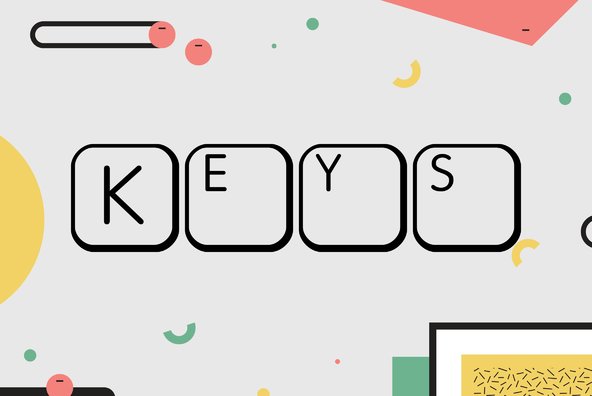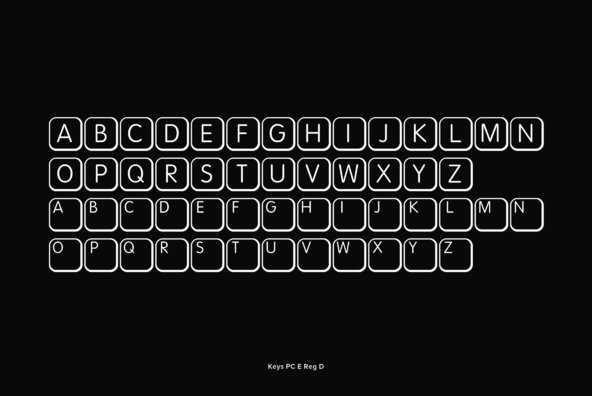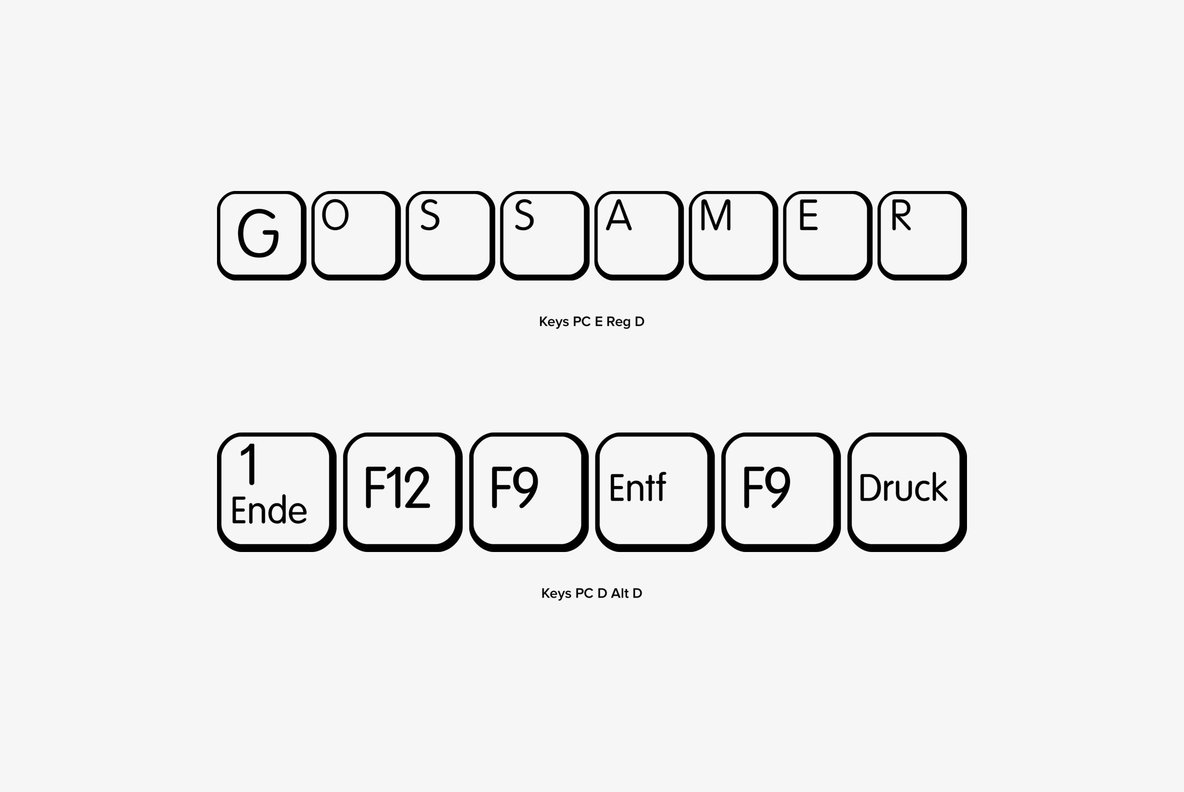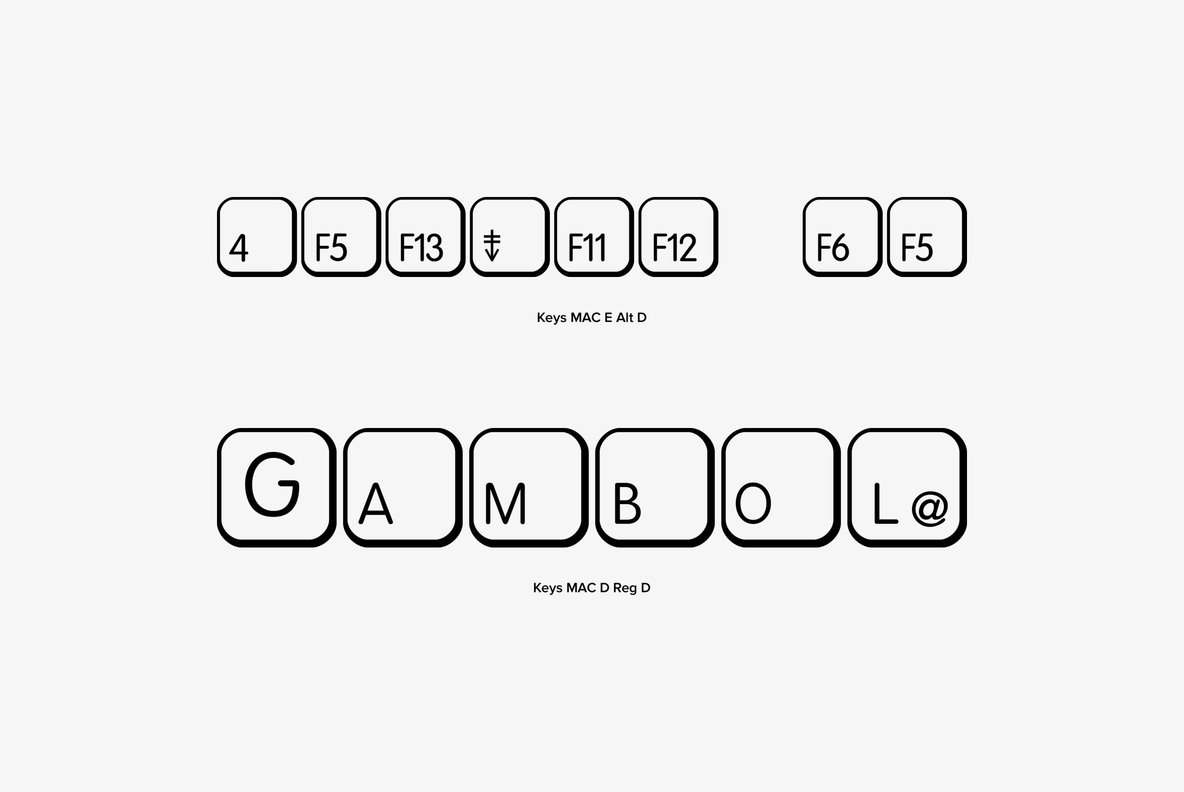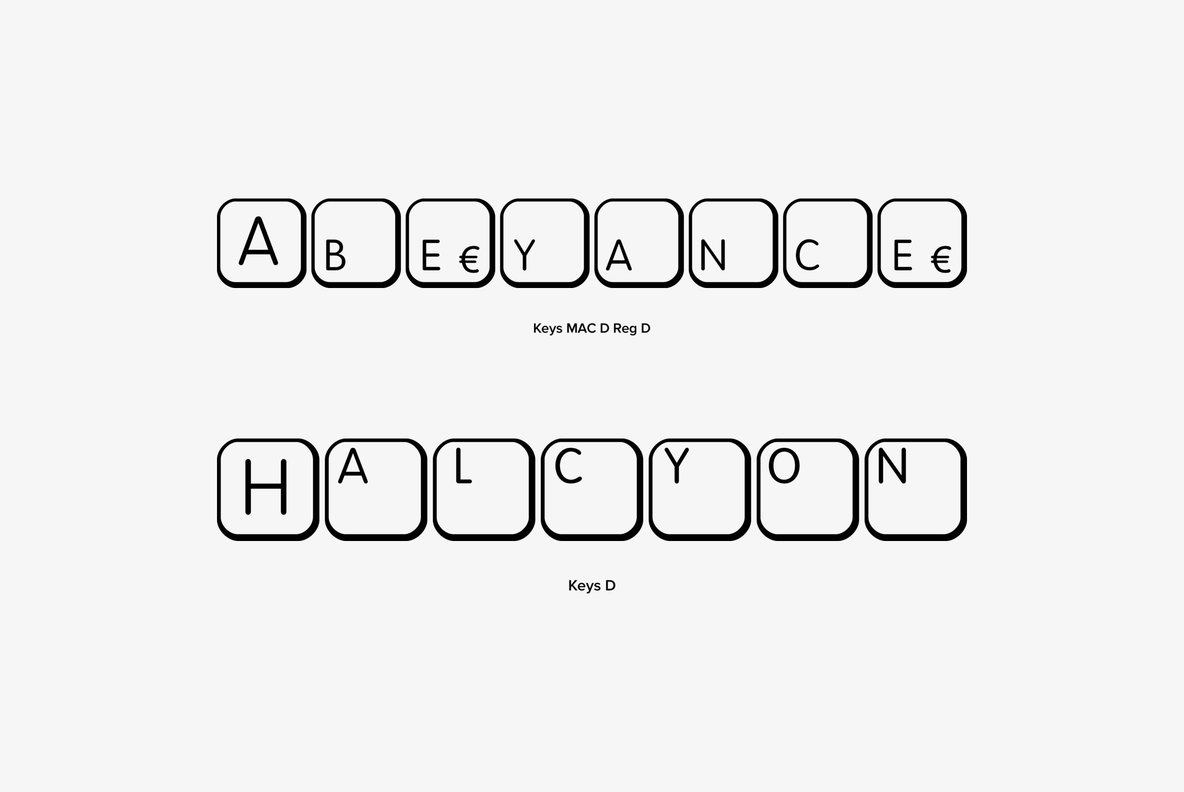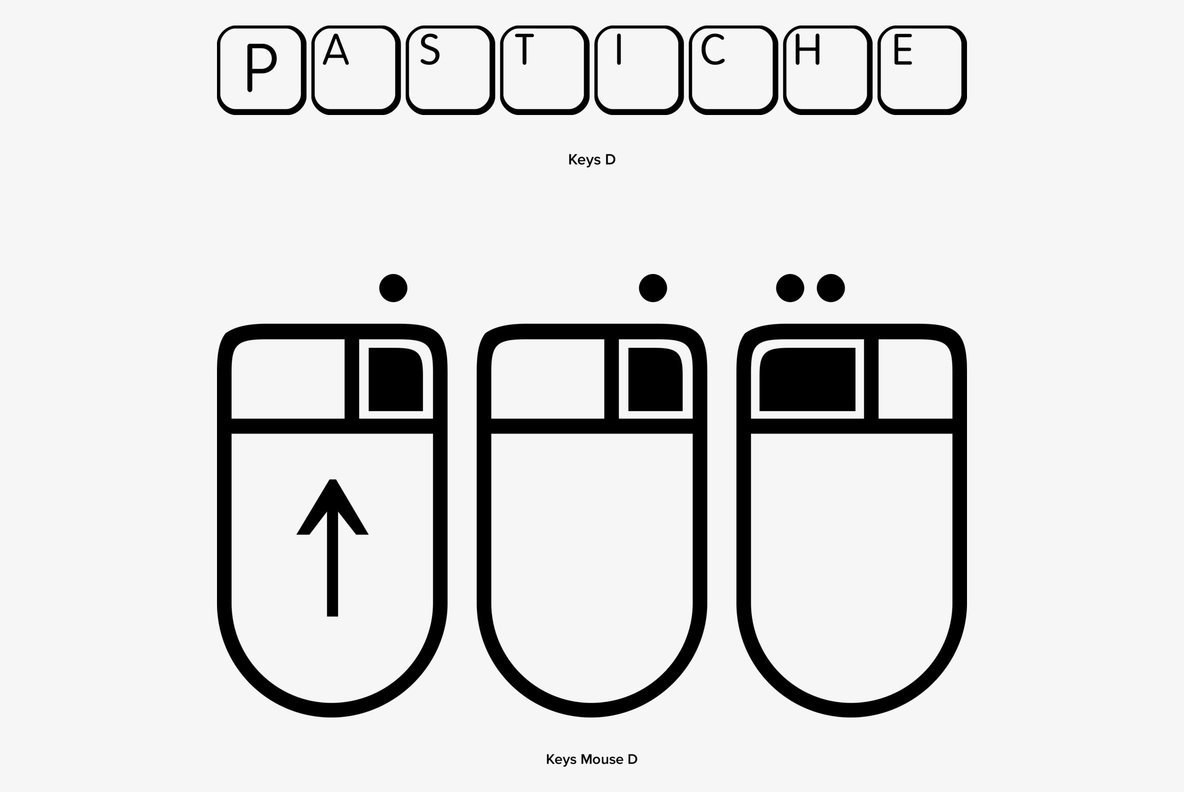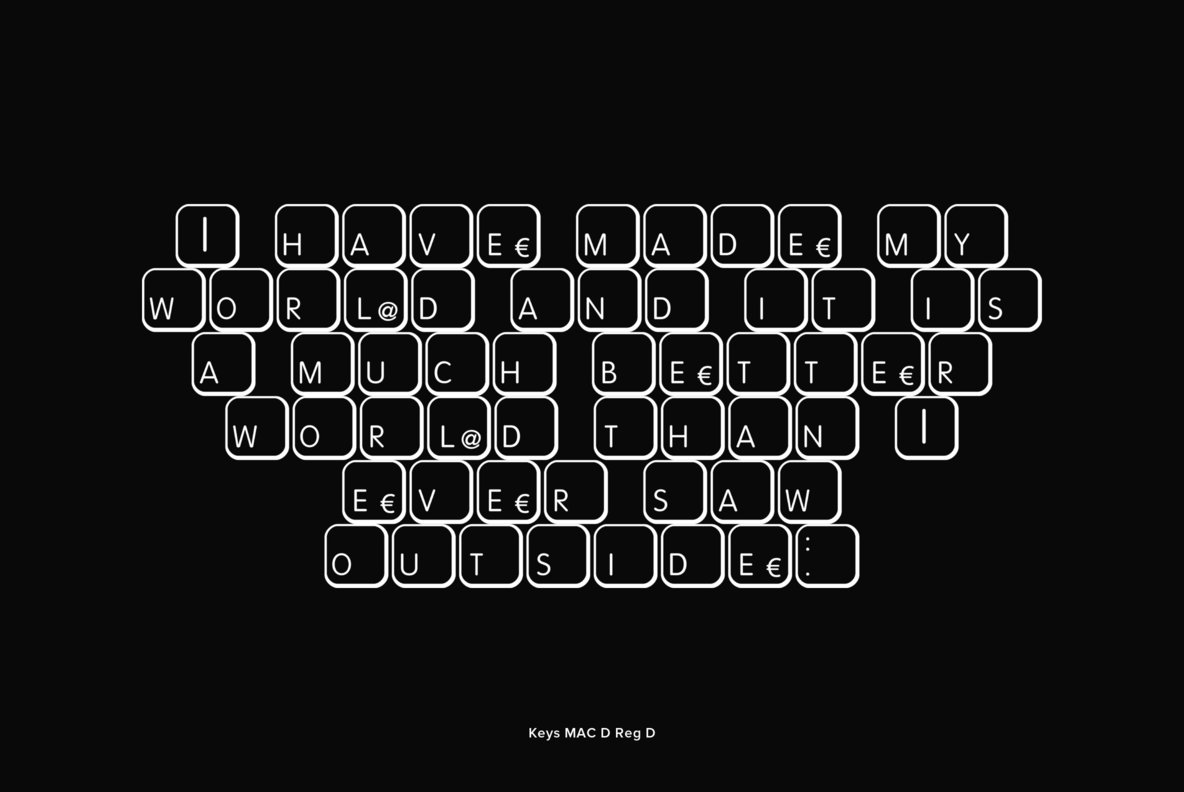
Keys is a unique dingbat font consisting of 10 different styles, covering both Macintosh and Windows keyboard style keys. Works great for on screen keyboard demos or as interesting and more decorative icon overlays.